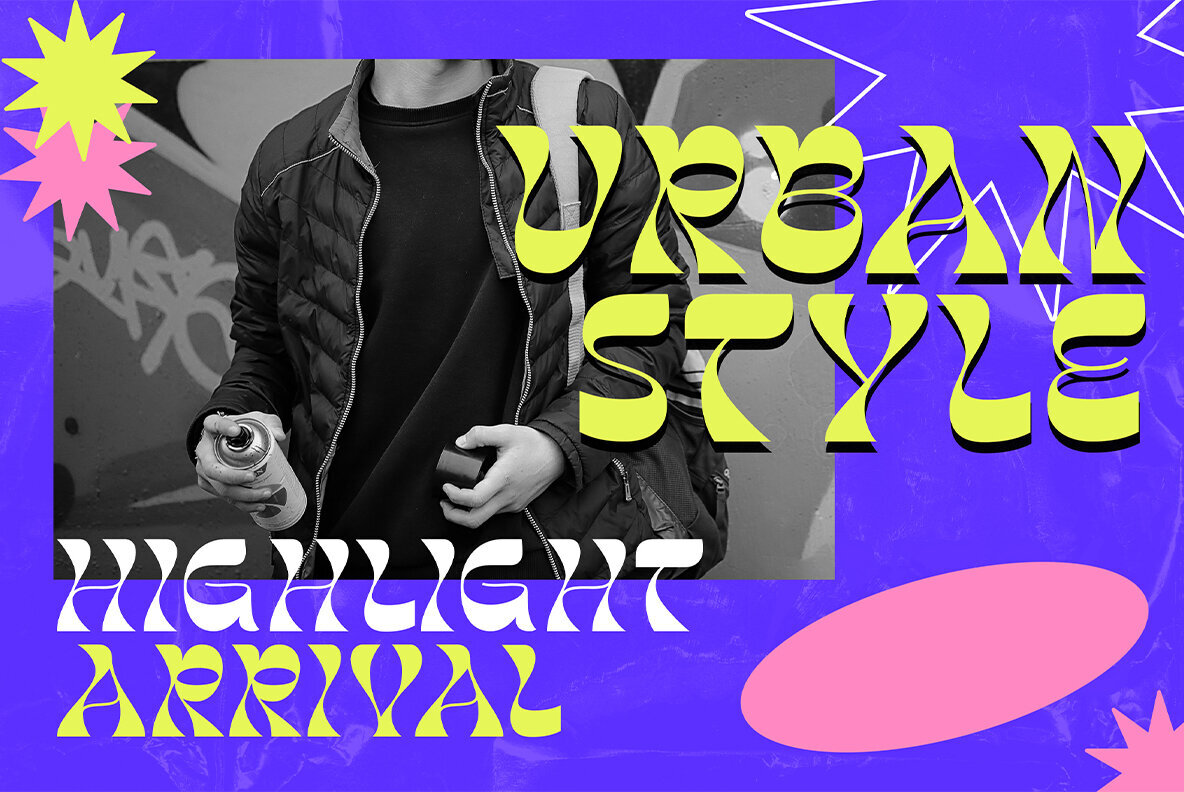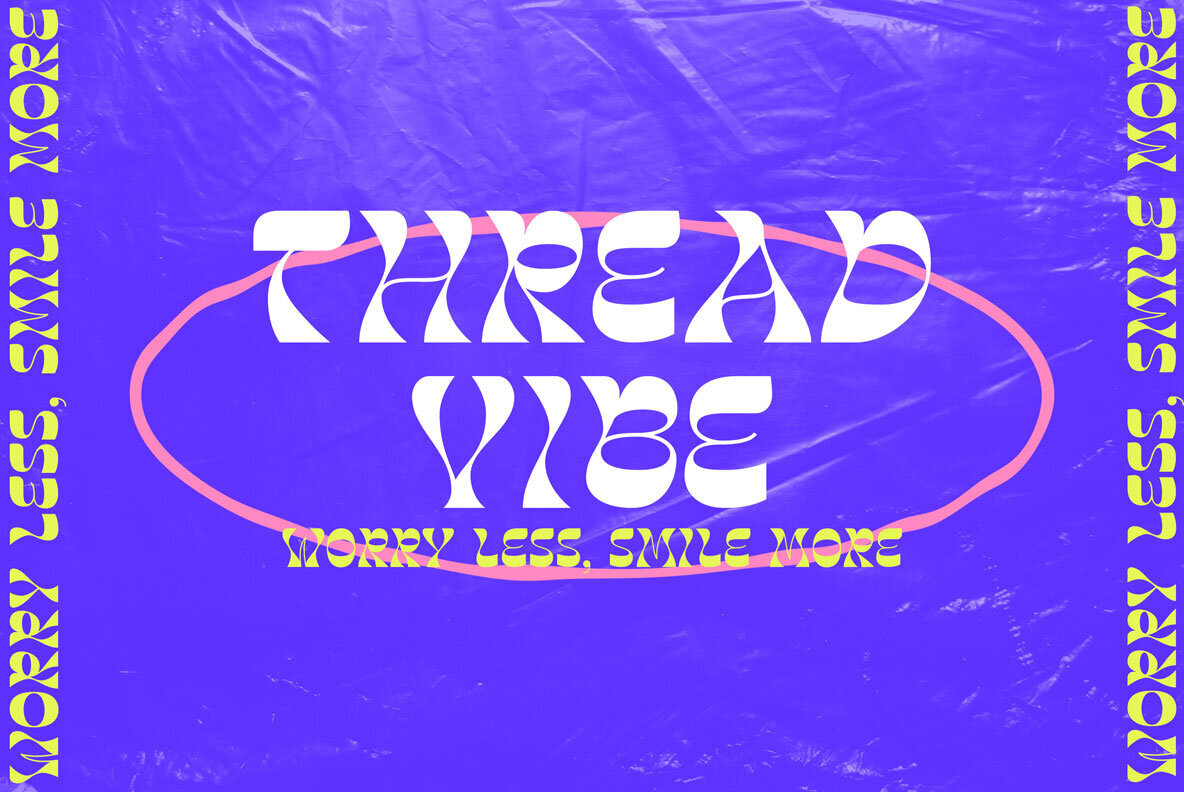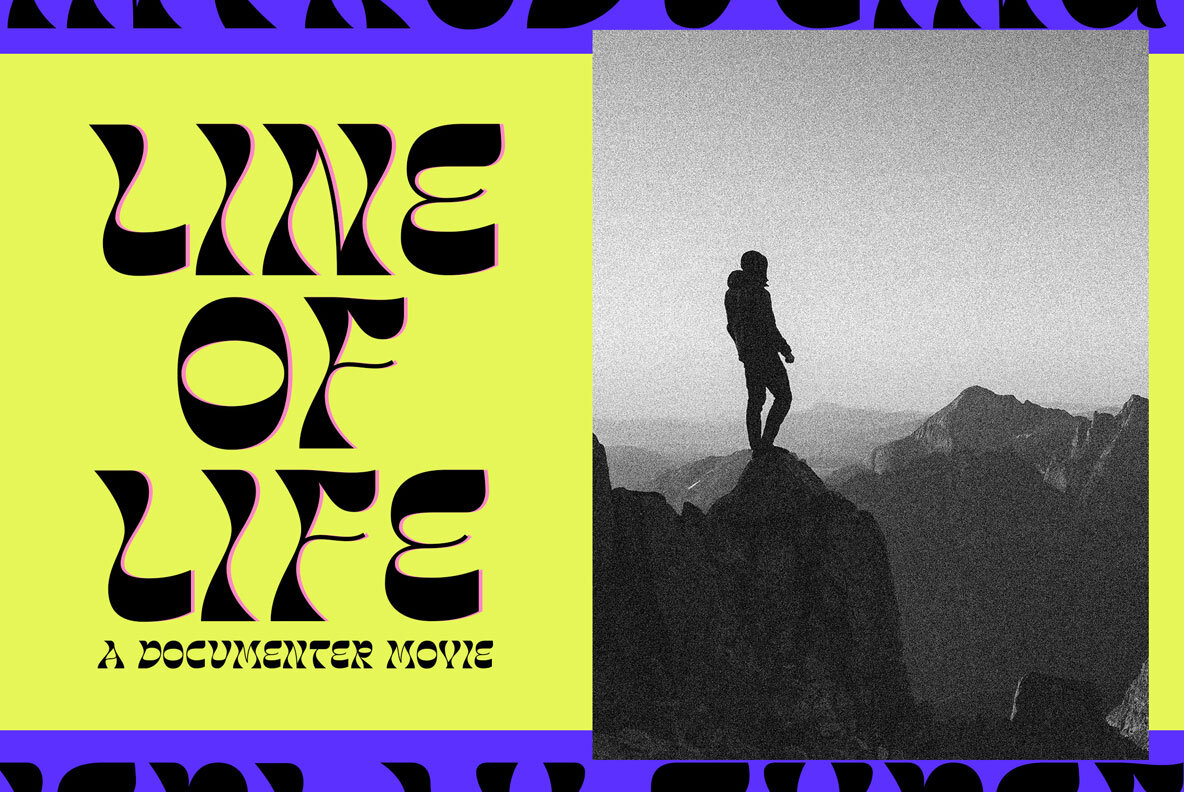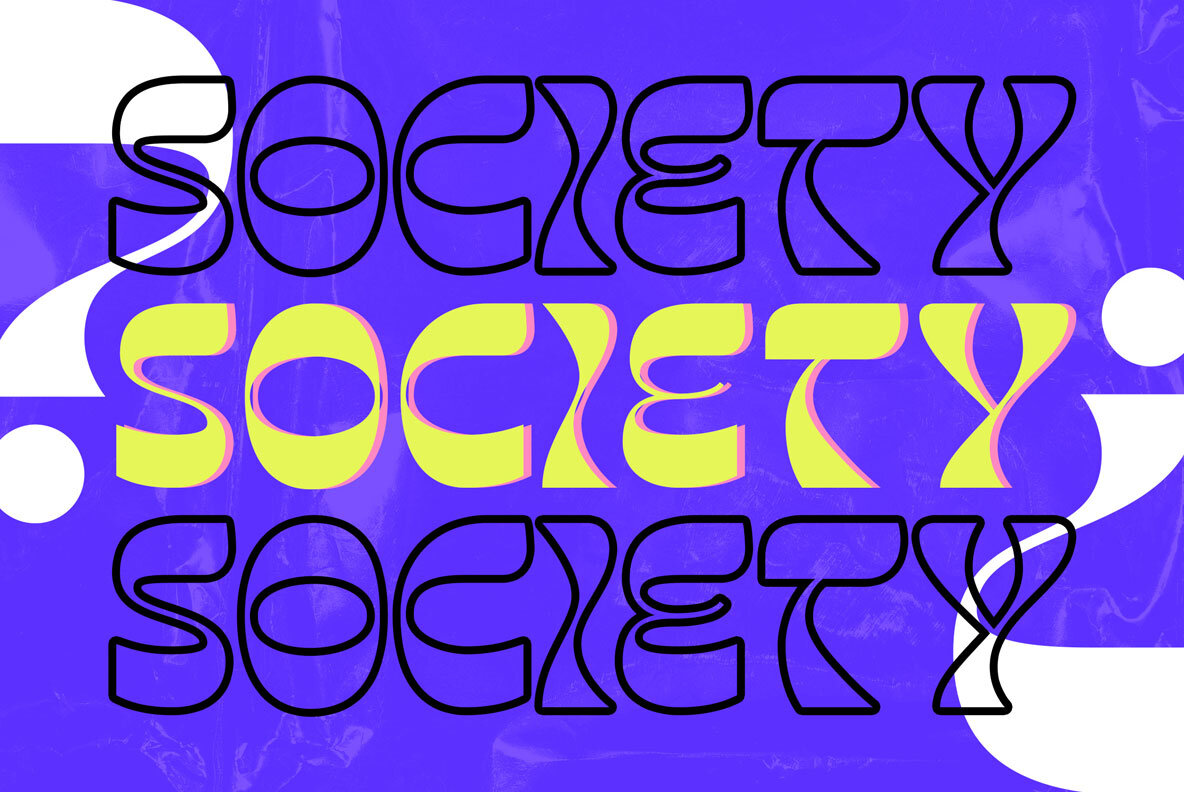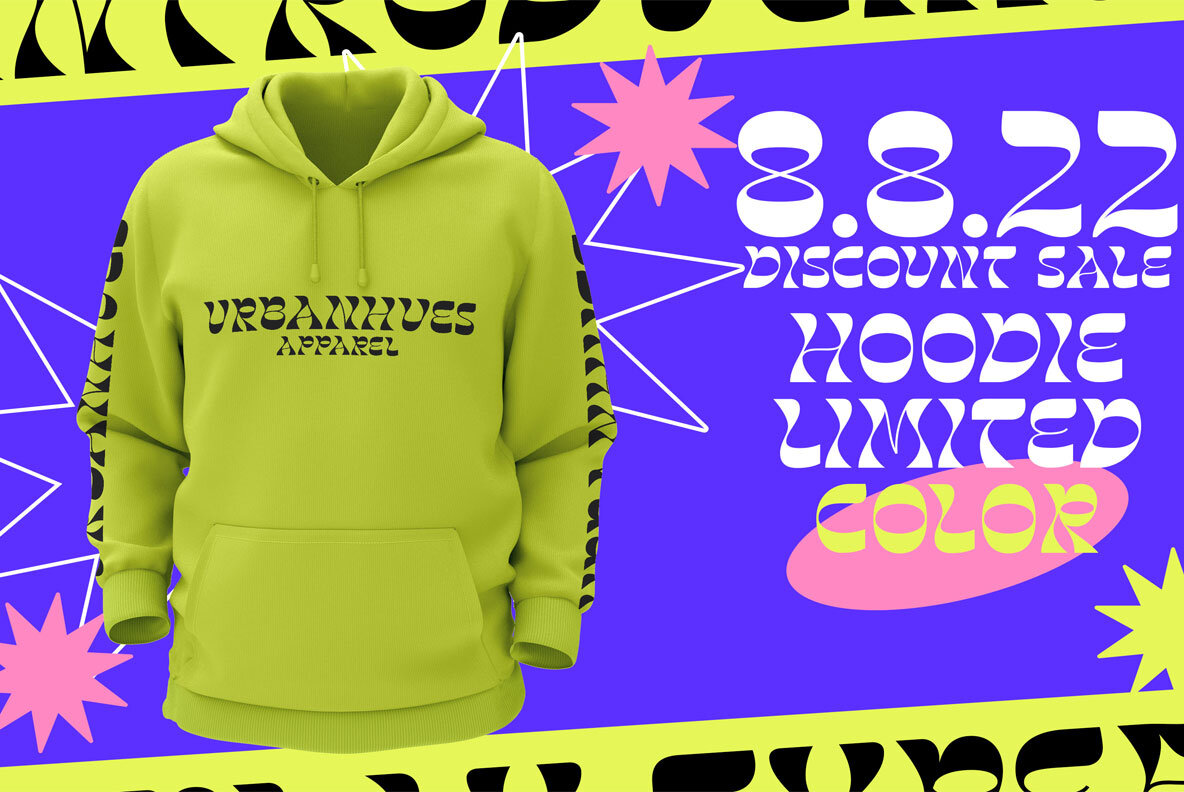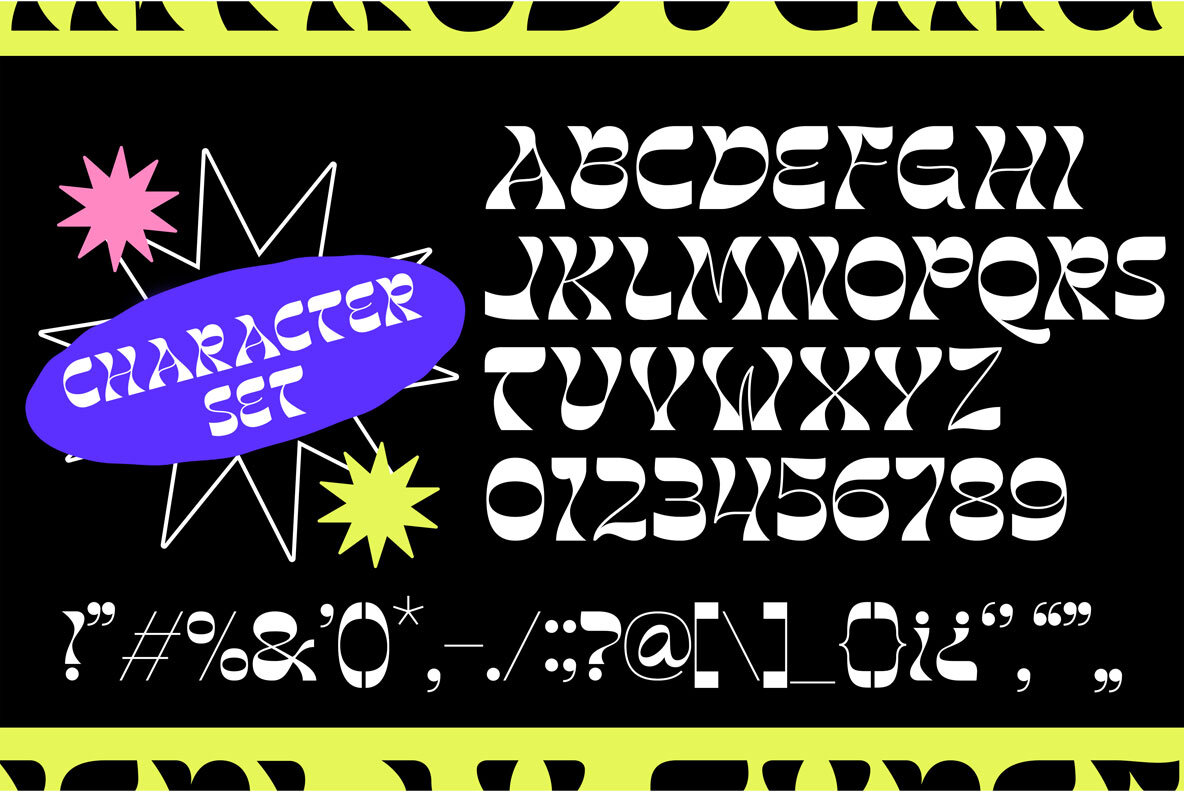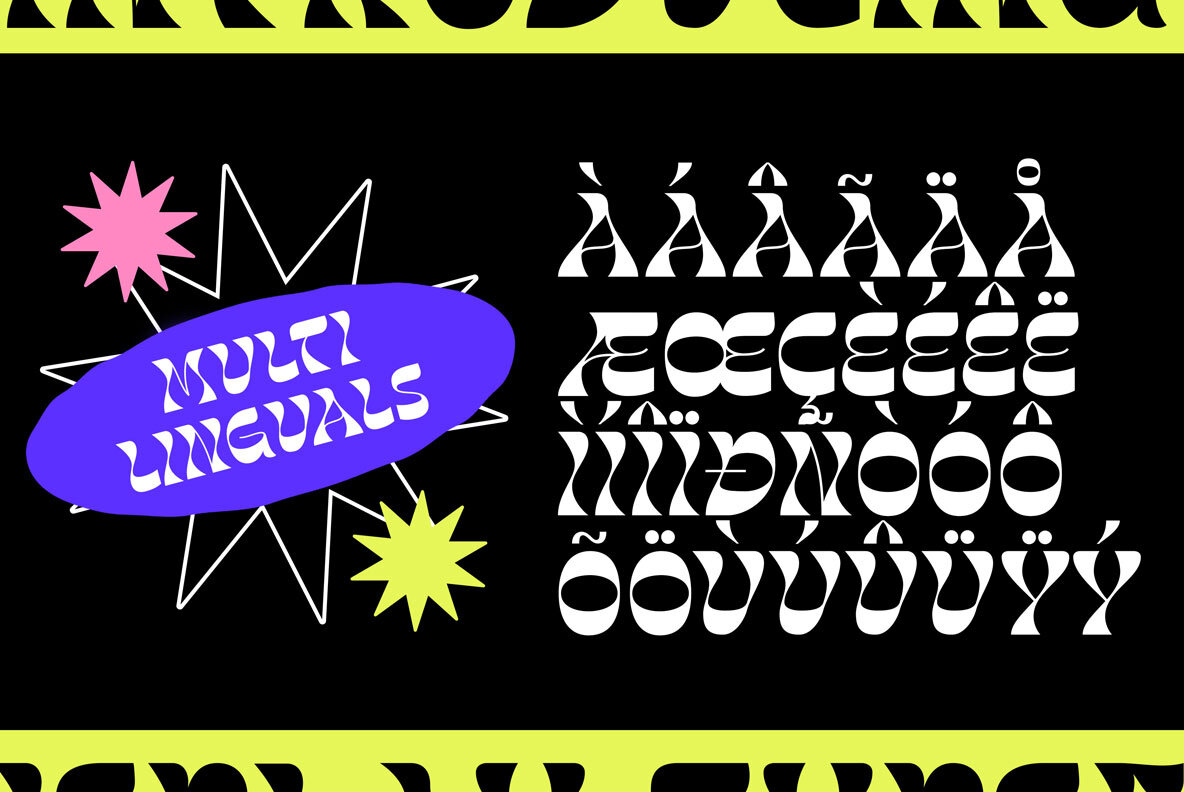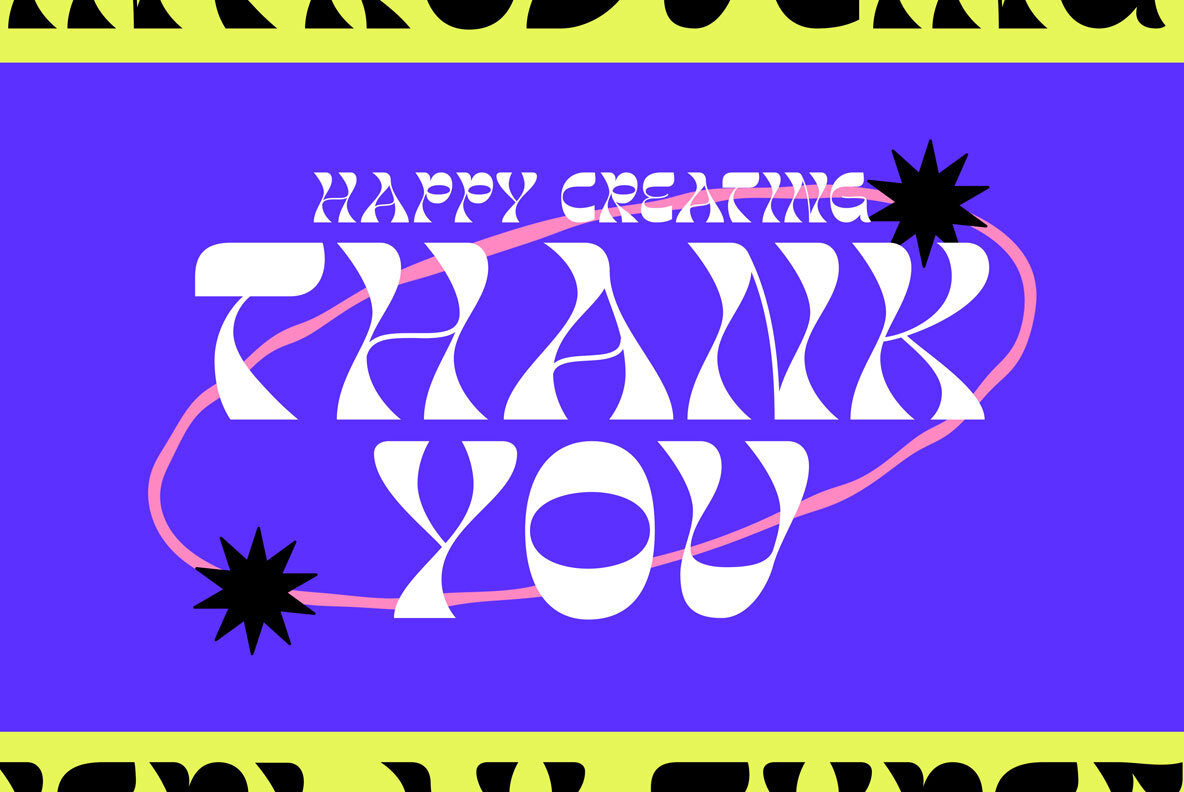
Aveneur Font
Aveneur Regular
Aveneur by MokaType Studio captures the essence of modern branding with its unique display style. Drawing inspiration from the bold characteristics of contemporary logos, this typeface is an ideal choice for posters, packaging, branding, and logotypes. Its strong and daring aesthetic lends itself superbly to digital and print design projects, creating a modern and professional look. The Aveneur font is a perfect match for various design purposes, including titles, typography, magazines, websites, and more. Its versatility makes it a valuable asset in any designer's toolkit, seamlessly adapting to diverse creative demands. This font is accessible in primary design software such as Adobe Illustrator, Photoshop, and InDesign, and can even be used in Microsoft Word. PUA Encoded Characters ensure full accessibility without additional software, making Aveneur a pragmatic choice for your design projects.Aveneur: Distinguished Display Typeface
Versatile Design Applications